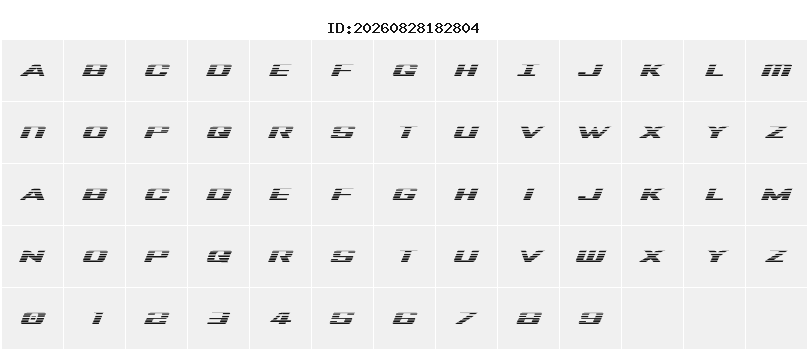
Tigershark Gradient Italic Preview
• Font Name: Tigershark Gradient Italic
• Full Font Name: Tigershark Gradient Italic
About Tigershark Gradient Italic.ttf
Tigershark Gradient Italic.ttf is a modern, elegant sans-serif font designed for ultimate readability and visual harmony. Perfect for branding, headlines, web design, and print materials.